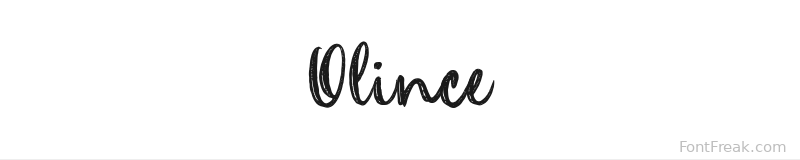
Olince
Olince is a beautifully crafted handwritten font by Kong Font, designed to bring a personal touch to your projects. This script font embraces a casual yet elegant style, characterized by its unique strokes and fluid lines. The lettering features a medium stroke weight with subtle variations, providing a sense of warmth and authenticity. The spacing between characters is thoughtfully balanced, enhancing readability while maintaining an inviting aesthetic. Decorative elements are minimal, ensuring that the font remains versatile and easy to integrate into various designs.
The Olince font is perfect for a range of creative applications. It shines in wedding invitations, where its romantic flair can beautifully complement the theme of love and celebration. Additionally, it is an excellent choice for restaurant menus, offering a friendly and approachable look that invites customers to explore the offerings. Movie posters can benefit from Olince's unique charm, adding a distinctive touch that captures attention. Small business branding, particularly for cafés or boutiques, also finds a great match with this font, helping to establish a welcoming and memorable identity. Content creators will appreciate its usability in social media graphics and promotional materials, where it can add a personal touch without overwhelming the message.
Targeting graphic designers, small business owners, and content creators alike, the Olince font free download offers an opportunity to elevate your design projects with ease. Its standout quality lies in its ability to convey warmth and personality while remaining versatile enough for various contexts. Whether you’re crafting an elegant invitation or a vibrant social media post, Olince is a font that can seamlessly adapt to your creative vision.